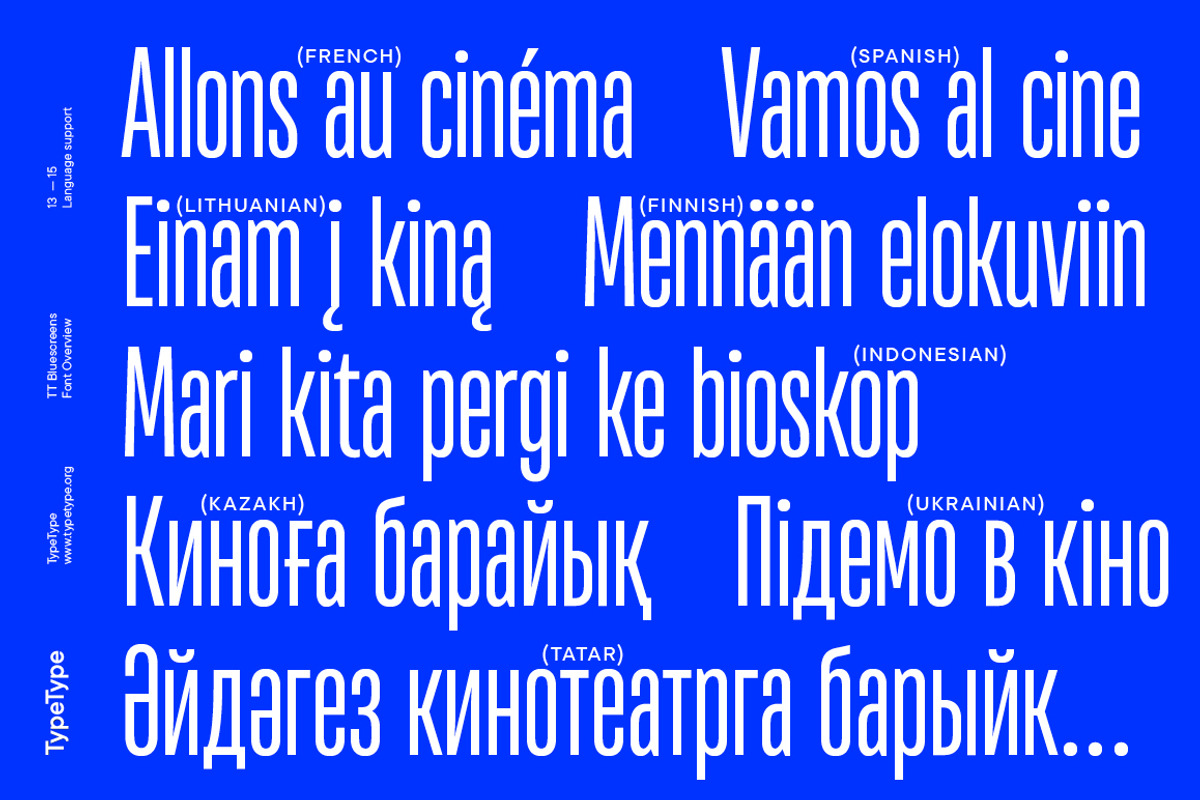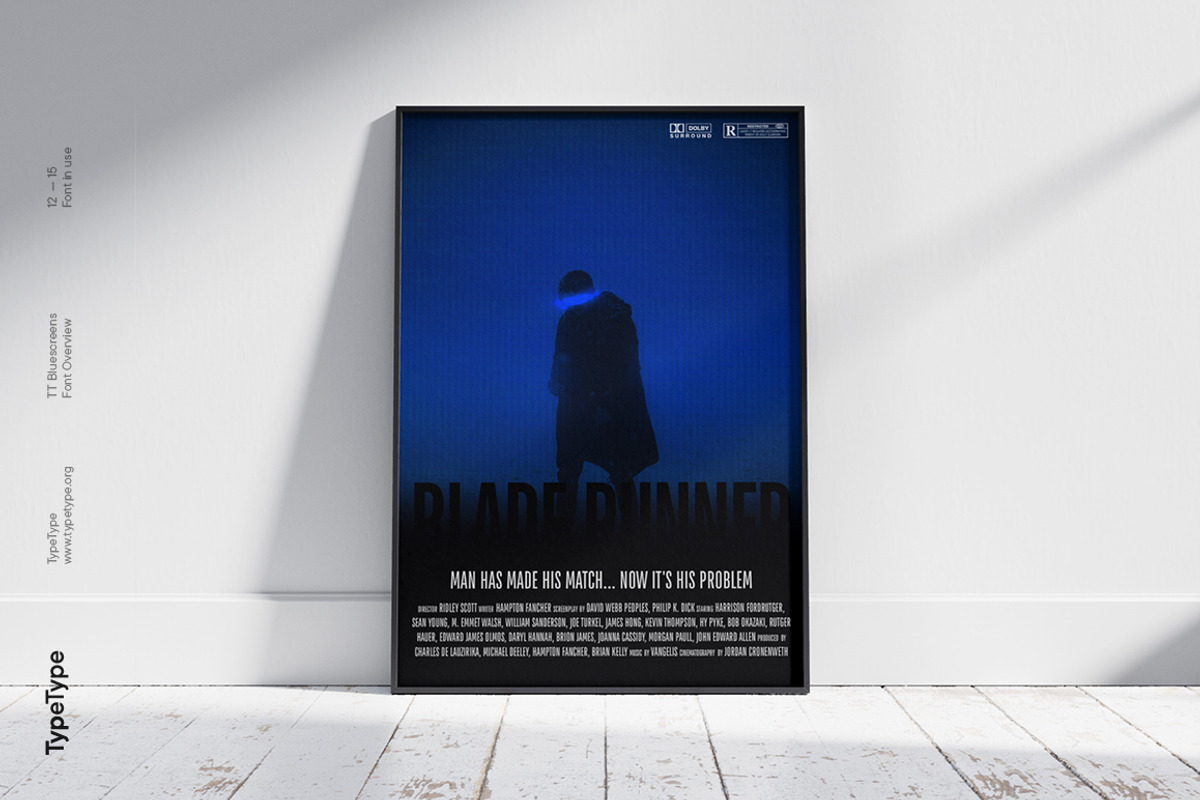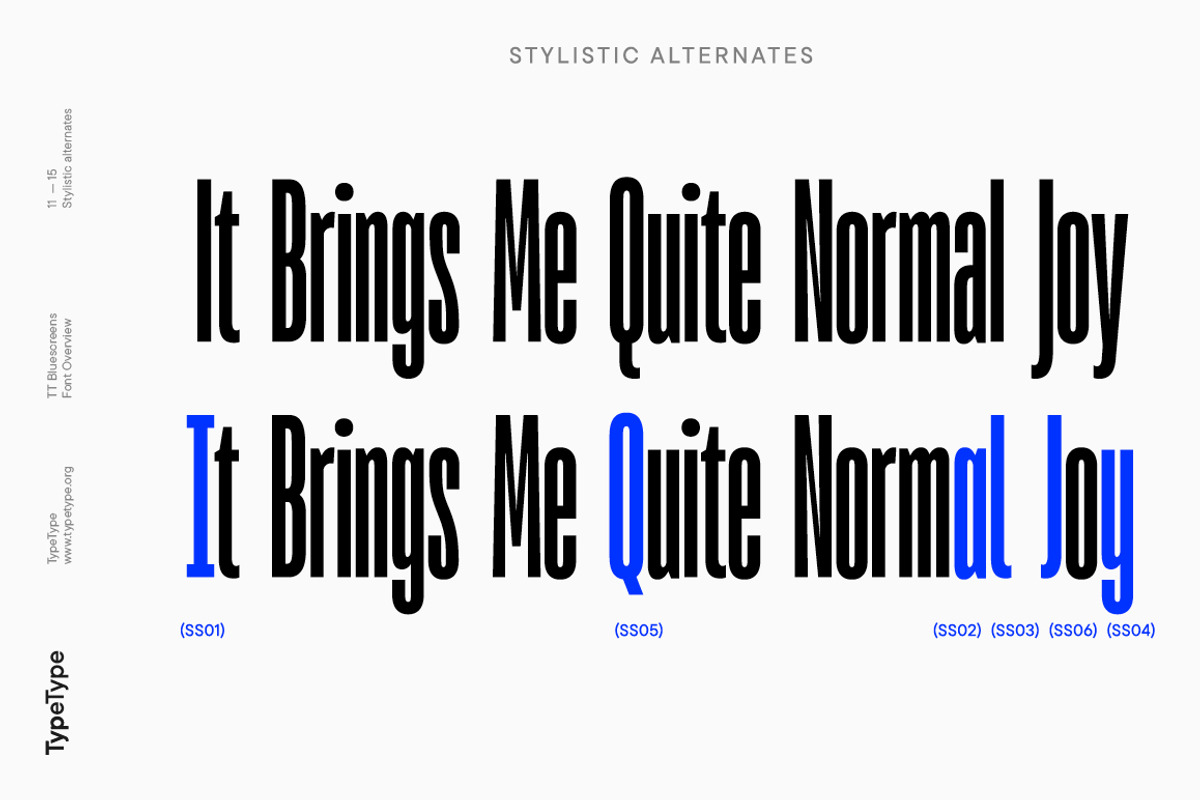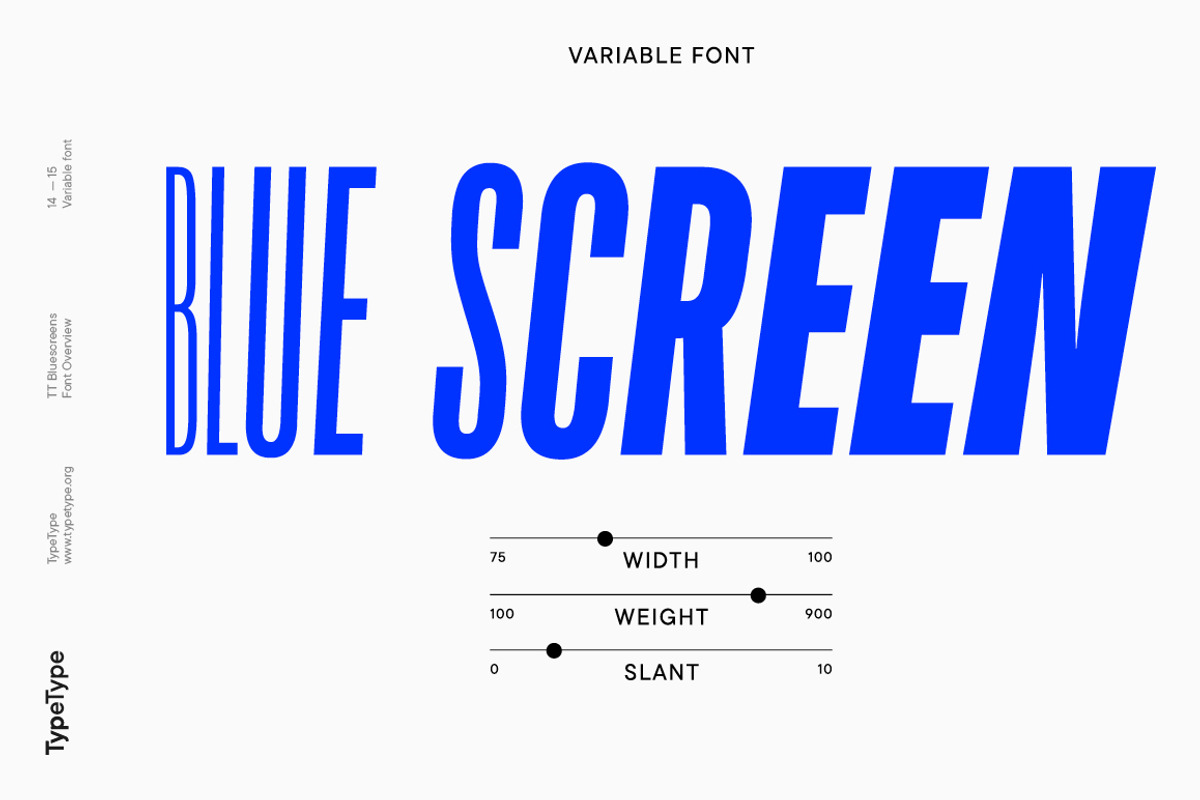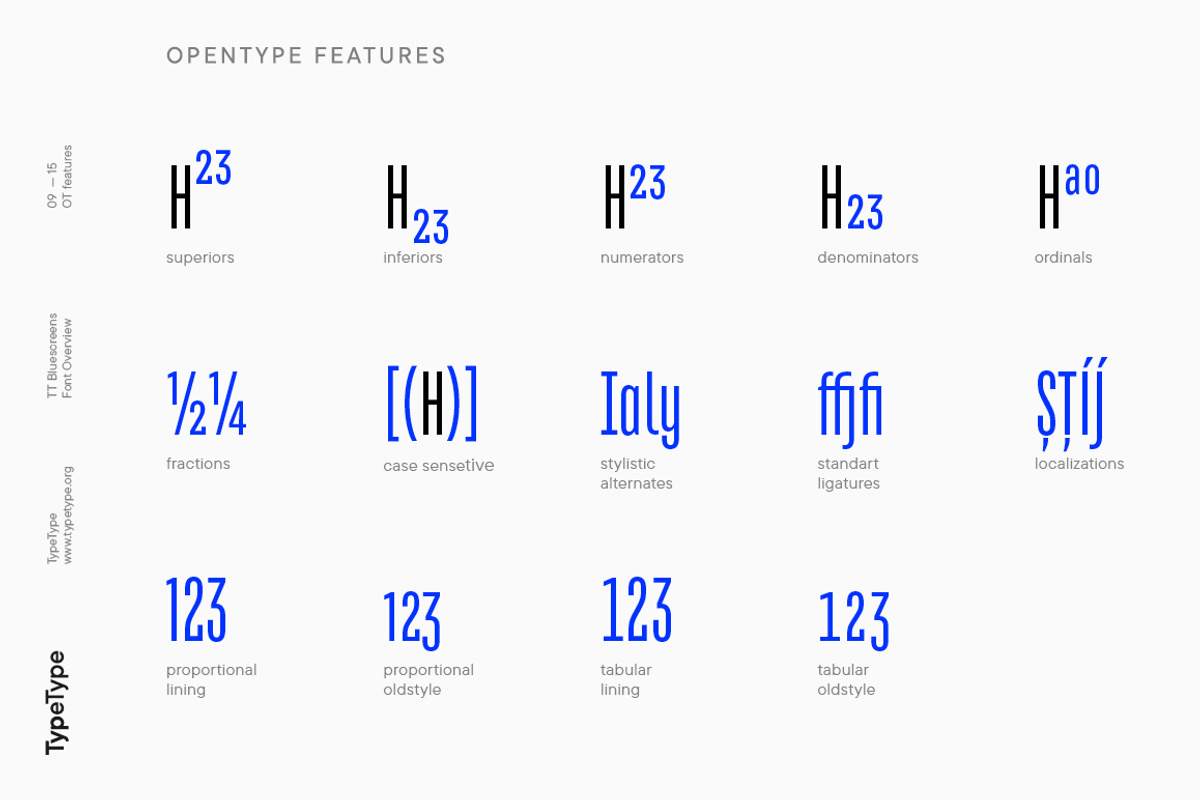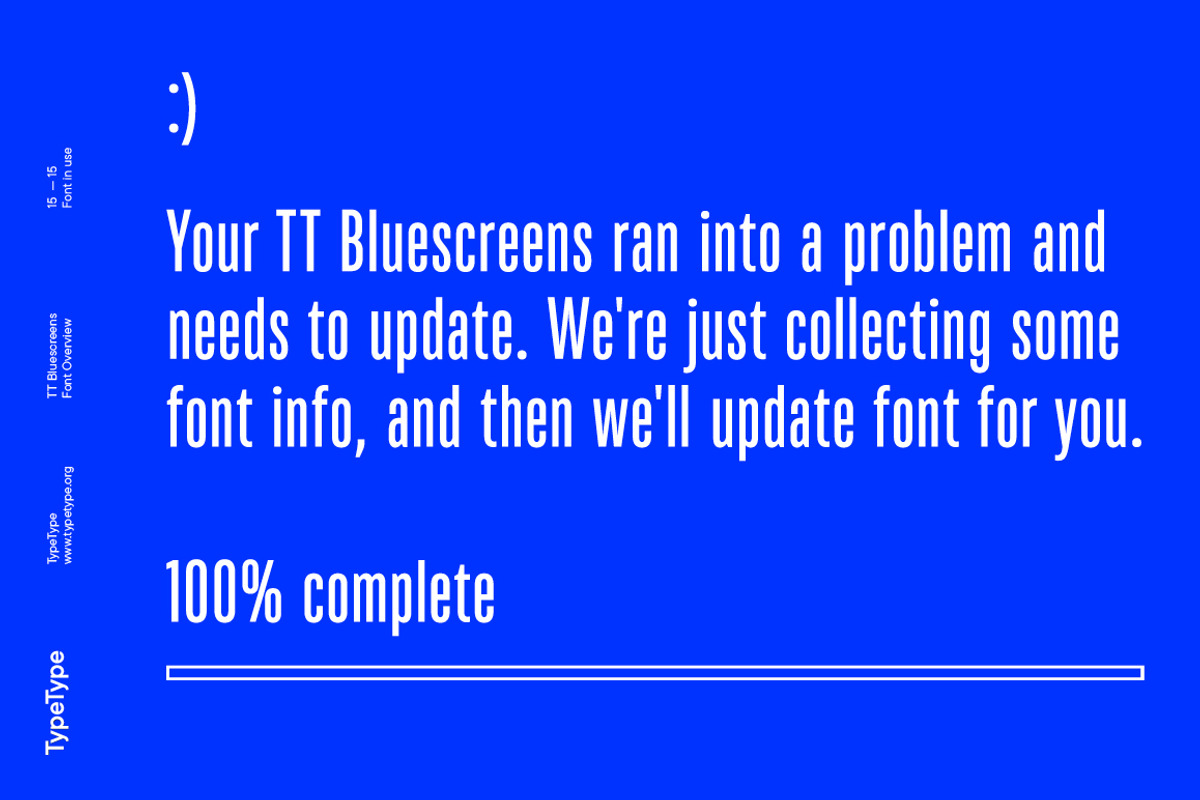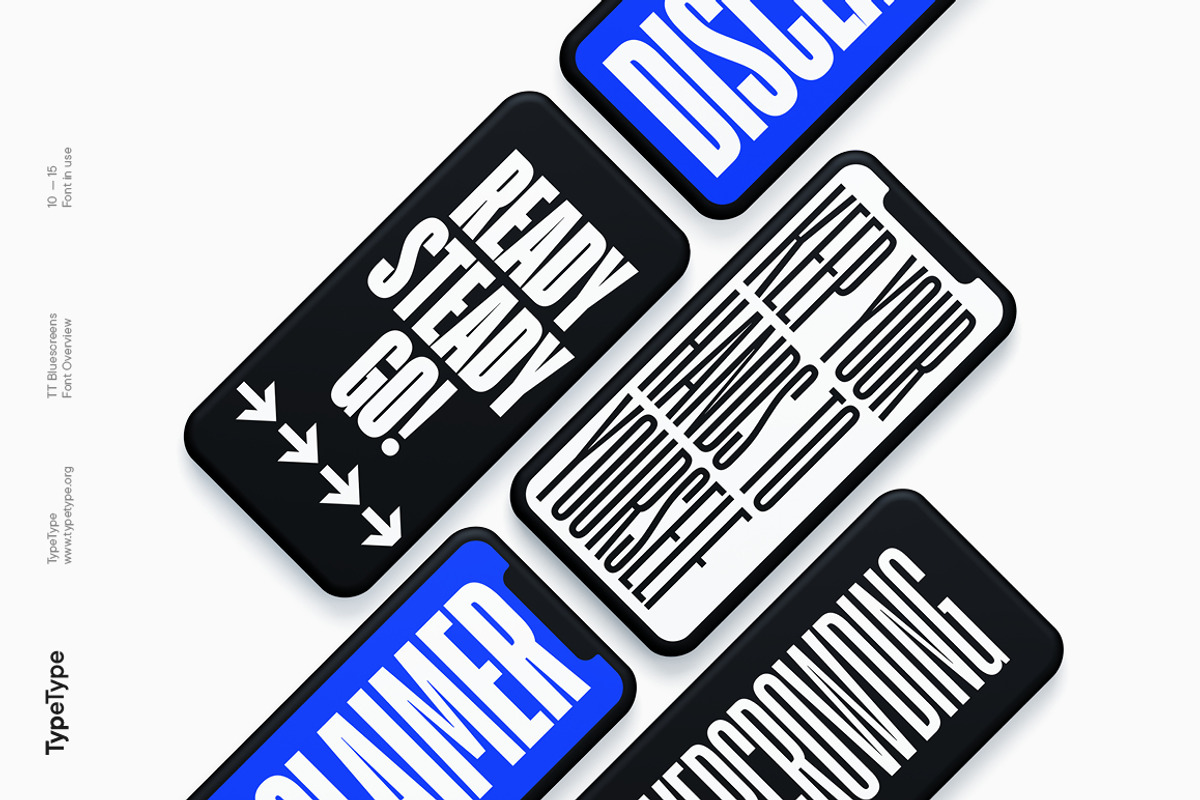
TT Bluescreens
- 9 upright and 9 italics of standard width, 9 upright and 9 italics in Condensed
- 874 characters for each typeface
- Supports 179 languages (incl. Cyrillic)*
- 31 OpenType features**
TT Bluescreens is a geometric sans serif with narrow proportions. The font has a memorable character, while remaining neutral, so it can be used in various design projects.
The range of possibilities of the updated TT Bluescreens has become much wider!
- Condensed styles with narrowed proportions have been added. The classic styles of TT Bluescreens are universal and suitable for setting both in headings and in text arrays. Condensed styles are intended for non-standard design solutions. In small sizes, they are perceived as if having a texture, thanks to which they can become part of packaging or poster design. In large size they look extraordinary, but they are highly readable and convey information well.
- Variable font now changes along 3 axes: weight, width and slant. Even more options for those who love variety.
- The character set of TT Bluescreens was expanded, and additional extended Cyrillic and Latin characters were added.
- Expanded character set. Each style has 874 characters. This is 253 characters more than it there were in the previous version. New currency signs, arrows, punctuation and fractions were added.
- Number of OpenType features increased from 18 to 31! The font has become even more functional and convenient thanks to a large number of ligatures, stylistic alternatives and localizations.
- The quality of the contours has become even higher, diacritics were improved.
The updated TT Bluescreens is suitable for the design of covers and posters, it will look aesthetically pleasing in packaging design. It can be used in the design of titles and disclaimers. Condensed styles are preferably used in large size.
The TT Bluescreens font has 37 styles: 9 upright and 9 italics of standard width, 9 upright and 9 italics in Condensed, 1 variable style. Each style contains 874 characters. The font has 31 OpenType features, including ligatures, stylistic sets, and localizations.